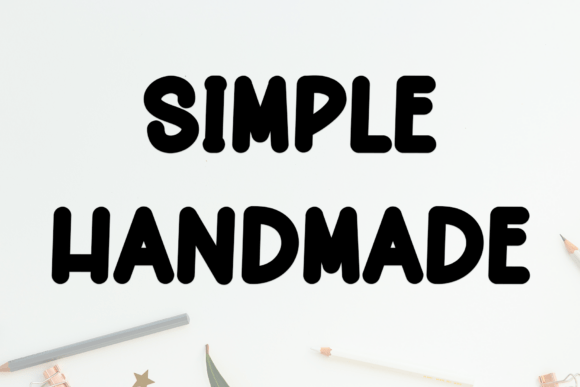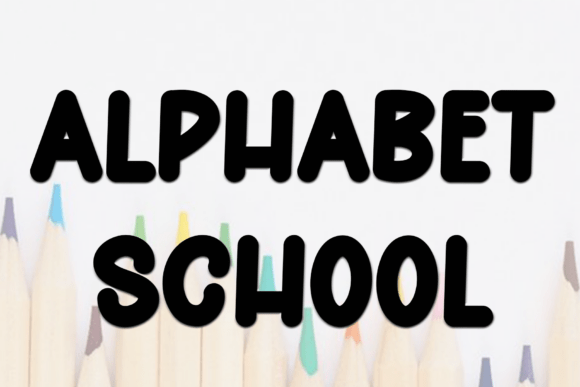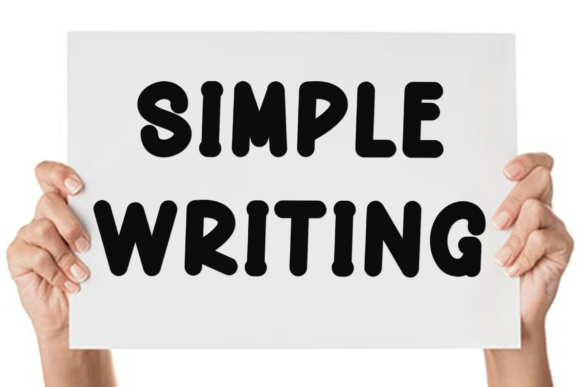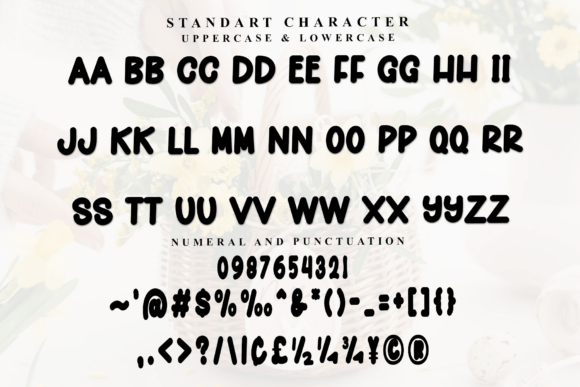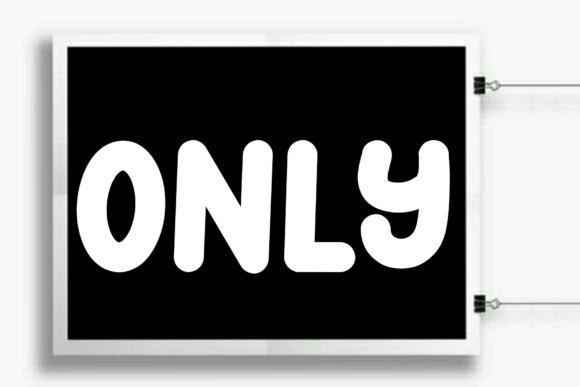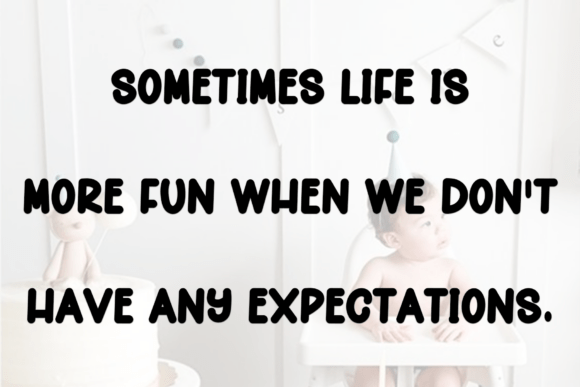
Introducing Heart Words Font: The Perfect Addition to Your Design Projects
Are you tired of using the same old fonts in your design projects? Look no further than Heart Words Font, a beautiful and eye-catching font that is sure to make your designs stand out. With its soft, unique touch and distinctive strokes, Heart Words Font is the perfect addition to any design project, craft, or creative work.
A Unique and Meaningful Font
Heart Words Font is designed with a special character that sets it apart from other fonts. Its soft and unique touch gives it a distinctive feel that is both meaningful and versatile. This font is perfect for designers and crafters who want to add a personal touch to their work. With Heart Words Font, you can create designs that are not only visually appealing but also convey a sense of warmth and personality.
Heart Words Font is ideal for a wide range of design projects, including crafts, posters, brochures, and more. Its unique style and versatility make it perfect for use in various creative fields, such as graphic design, digital art, and handlettering. Whether you’re a professional designer or a hobbyist crafter, Heart Words Font is sure to become a staple in your design toolkit.
A Wide Range of Characters
Heart Words Font comes with a wide range of characters, making it perfect for use in various design projects. From uppercase and lowercase letters to numbers and punctuation marks, this font has everything you need to create beautiful and cohesive designs. You can use it to create stunning titles, headings, and body text that will engage your audience and make your designs stand out.
Enhance Your Designs with Heart Words Font
With Heart Words Font, you can enhance your designs and make them appealing to a wide range of audiences. Its unique style and versatility make it perfect for use in various artistic and creative fields, such as:
- Graphic design: Use Heart Words Font to create stunning posters, brochures, and business cards that will make your brand stand out.
- Digital art: Add a personal touch to your digital art with Heart Words Font, perfect for use in illustrations, paintings, and more.
- Handlettering: Use Heart Words Font to create beautiful handlettering pieces that will showcase your creativity and skill.
- Crafts: Incorporate Heart Words Font into your craft projects, such as scrapbooking, journaling, and card making.
In conclusion, Heart Words Font is a beautiful and eye-catching font that is perfect for designers and crafters who want to add a personal touch to their work. With its soft, unique touch and distinctive strokes, this font is sure to make your designs stand out. Its compatibility with various applications and wide range of characters make it a versatile and practical choice for a wide range of design projects. So why wait? Download Heart Words Font today and take your designs to the next level!